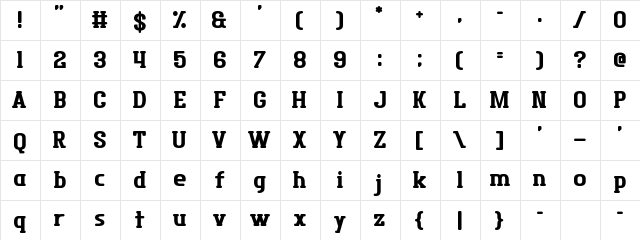
District Four Regular
Design Context for District Four Typeface
District Four takes a measured approach to typography — its balanced proportions and neutral character make it a reliable workhorse for both digital and print work.
Pro Tip: Use District Four in both headline and body roles to test its range before committing to a single application.